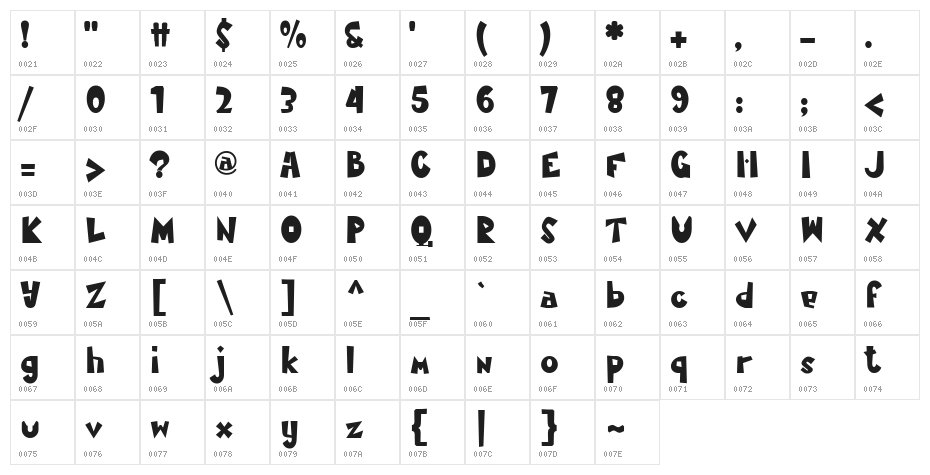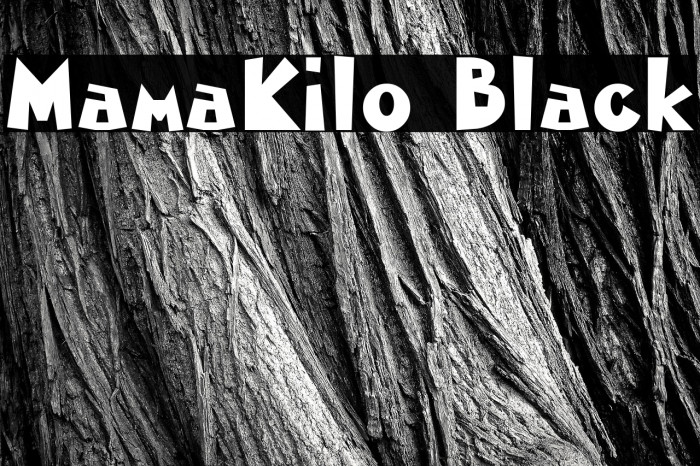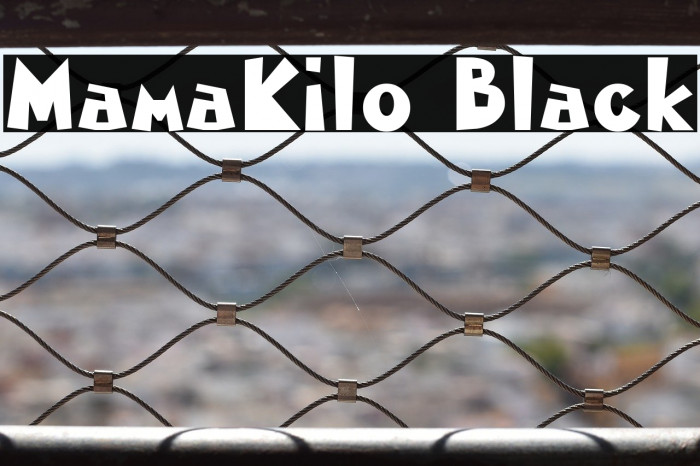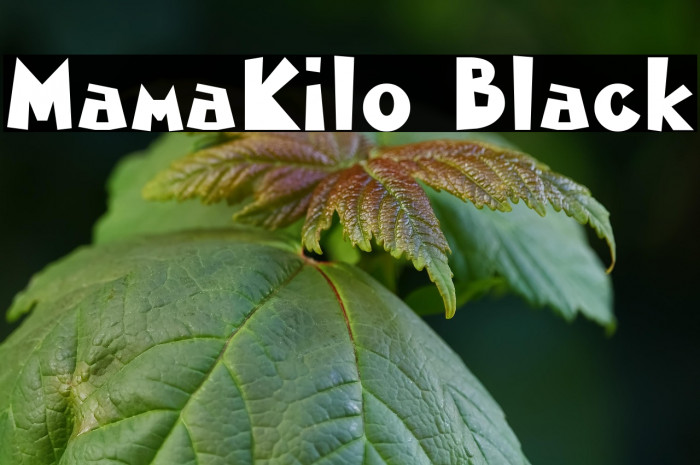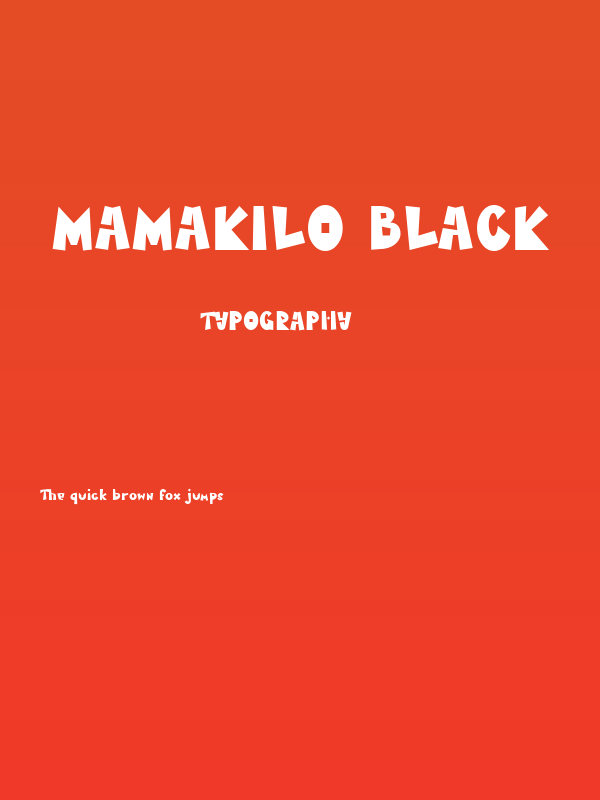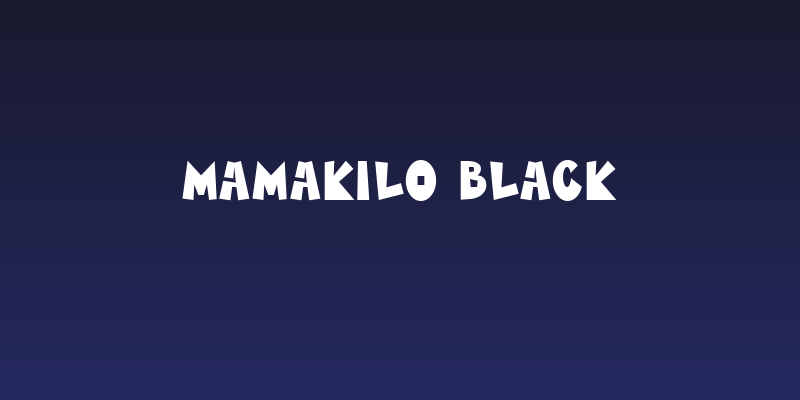
MamaKilo Black Font
MamaKilo Black Description
This font features a bold and playful design with exaggerated, irregular shapes that give it a whimsical and energetic feel. The characters are thick and robust, with a unique, hand-drawn appearance that adds a sense of fun and creativity. The uppercase and lowercase letters maintain a consistent style, with some characters having unexpected angles and curves that enhance its quirky personality. The numbers and special characters follow the same playful aesthetic, making this font ideal for projects that require a lively and unconventional look.
| Overall Style | Playful, Whimsical, Creative |